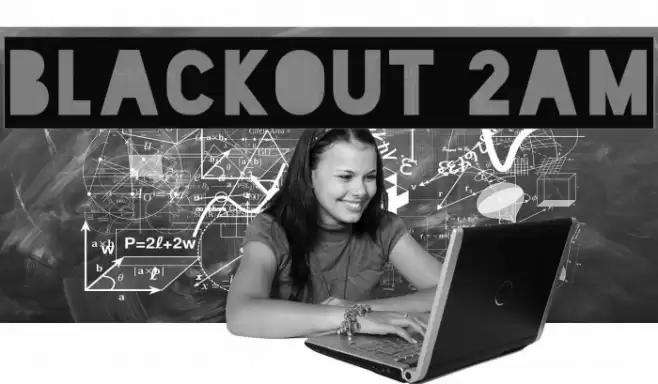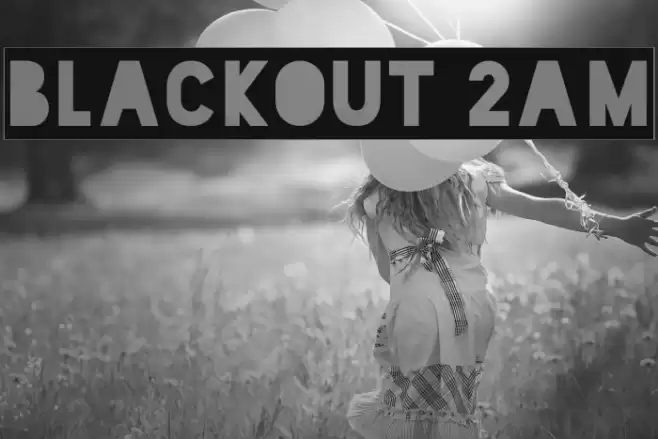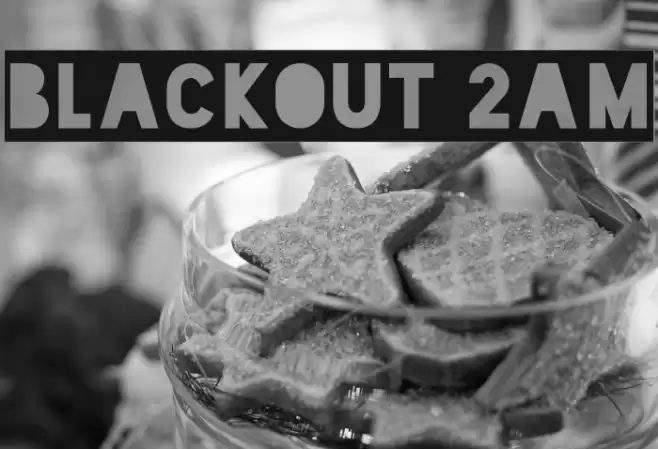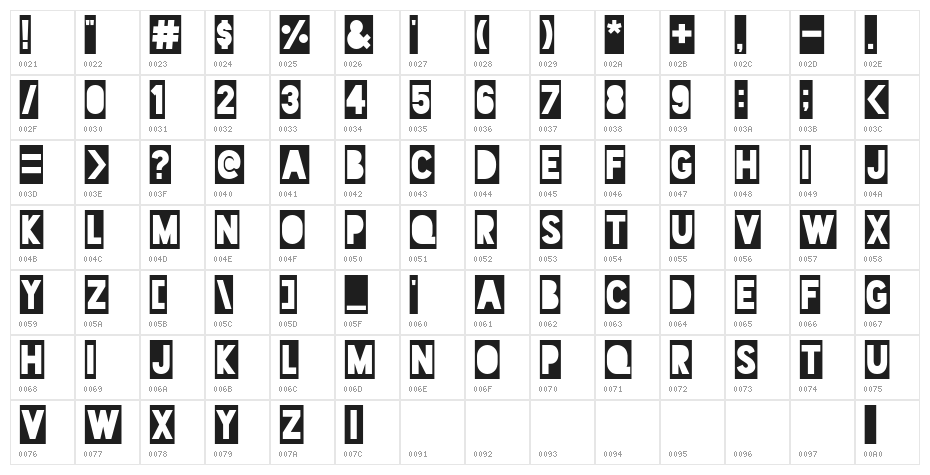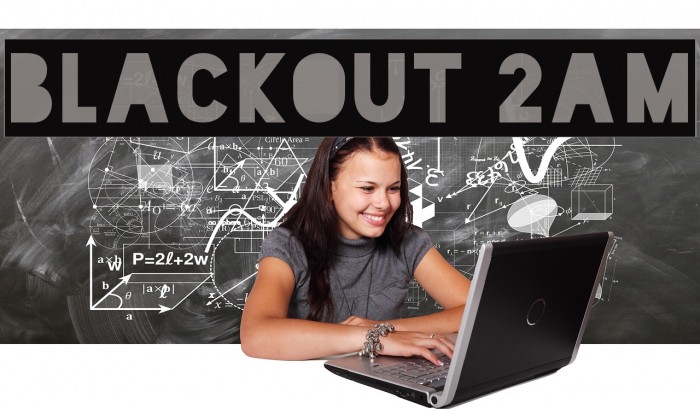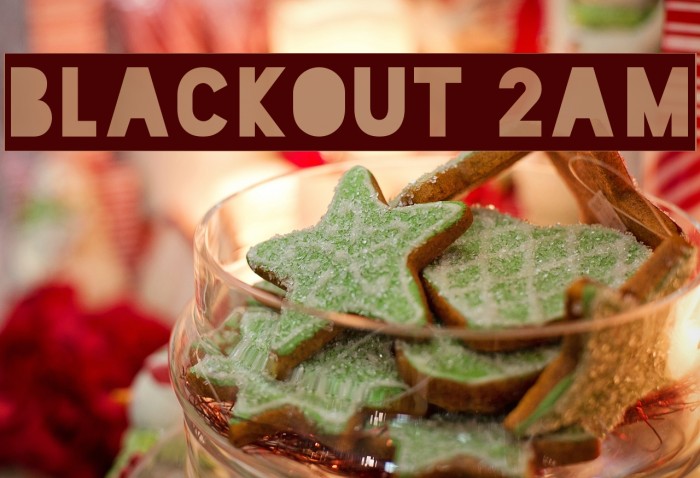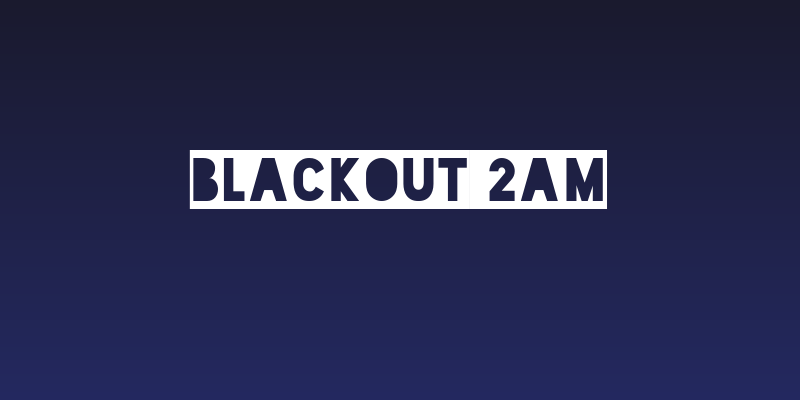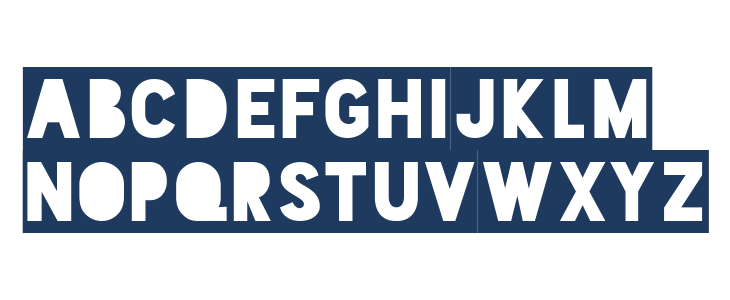
Blackout 2AM Font
Blackout 2AM Description
This font features bold, geometric letterforms with a strong, impactful presence. The characters are constructed with solid, block-like shapes, creating a sense of stability and strength. The uppercase letters are particularly striking, with a uniform height and width that contribute to a cohesive look. The lowercase letters maintain the same boldness, ensuring consistency throughout. Numbers and special characters are equally robust, designed to stand out in any context. This font's design is reminiscent of stencil or industrial styles, making it suitable for projects that require a modern, edgy aesthetic.
A bold, geometric font with a strong, industrial style from Uncategorized fonts.
- Proposed Projects: Ideal for posters, signage, branding, and any project needing a bold, modern look.